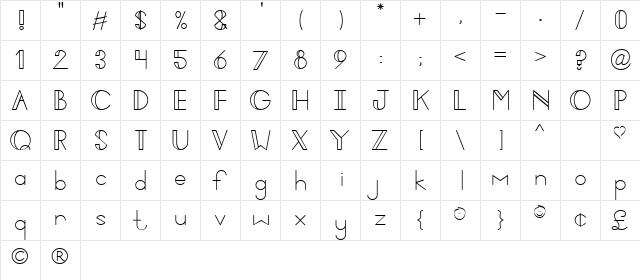
DC Moonbeams Regular
Design Context for DC Moonbeams Typeface
DC Moonbeams is a composed and adaptable typeface that performs quietly and consistently across a wide range of design contexts.